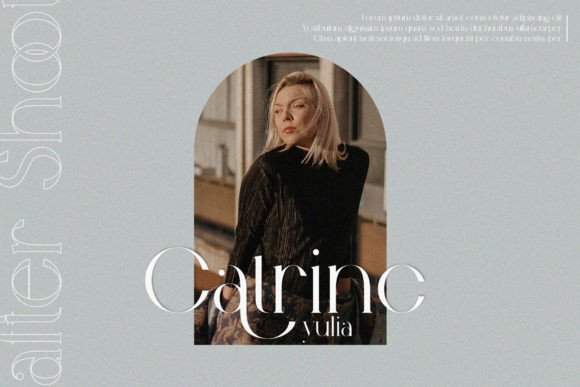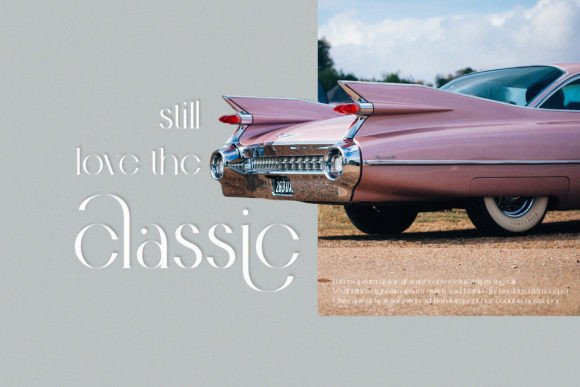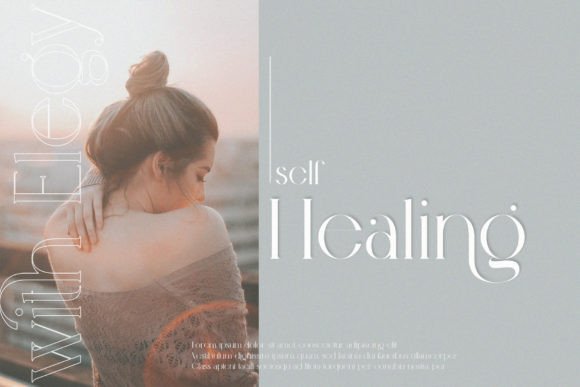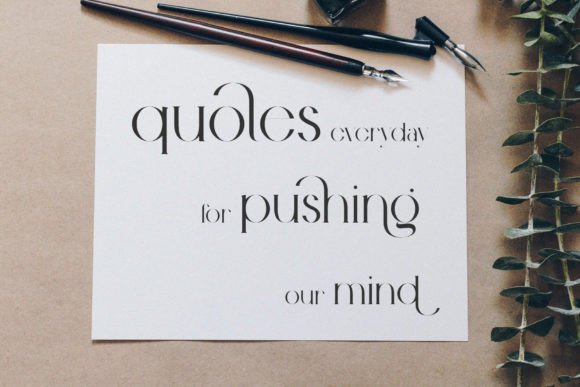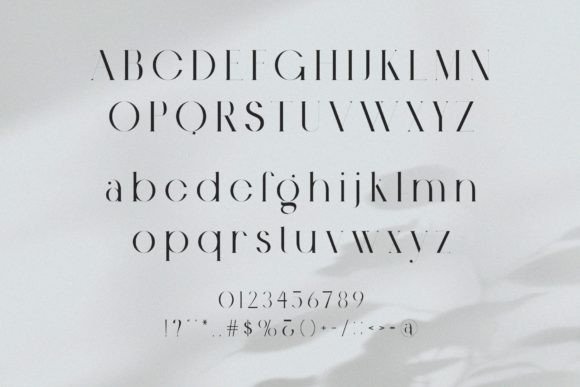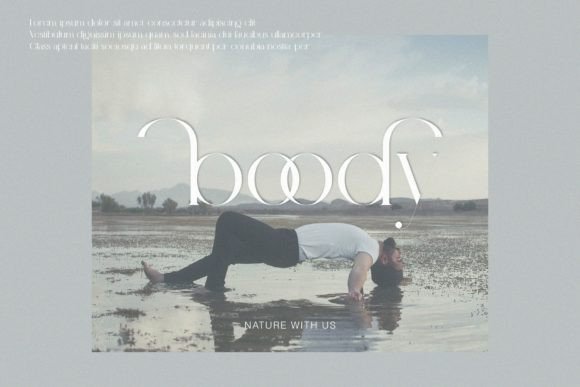
Introduction to Mallnote Font
Remember the thrill of designing a project that finally comes together? The feeling of excitement as you see your ideas transform into a beautiful, cohesive piece of art. For many designers, this moment is the culmination of countless hours spent brainstorming, experimenting, and refining their vision. And when it comes to elevating your creative project to the next level, the right font can make all the difference. That’s where the elegant and classy Mallnote Font comes in – a game-changing design resource that can add a touch of sophistication and style to your work.
| 👤 Author | Alfinart |
Whether you’re working on a logo, a headline, or a high-quality design that demands attention, the Mallnote Font is an excellent choice. Its strong, confident, and dynamic feel can transport your audience to a bygone era, while its PUA encoding ensures seamless access to all glyphs and ligatures. With the Mallnote Font, you can create designs that stand out from the crowd, even on a transparent background. And the best part? It’s available for free download, making it an invaluable resource for designers of all levels.
- High-quality design resource for creative projects, ideal for digital artwork and graphic design.
- Designed to be highly legible and versatile, suitable for a wide range of creative applications.
- Features a clean and modern aesthetic, making it an excellent choice for contemporary design projects.
Honest Review: Mallnote Font
I recently stumbled upon the Mallnote Font while working on a creative project, and I must say it’s been a game-changer. The font’s unique blend of modern and vintage elements has added a touch of sophistication to my design. Plus, it’s free to download, making it an excellent resource for designers on a budget.
One of the standout features of the Mallnote Font is its versatility. It comes in a range of weights and styles, making it perfect for everything from headings to body text. The high-quality design is evident in every aspect of the font, from its smooth lines to its well-balanced proportions.
- ✨ Unique blend of modern and vintage elements
- ✨ Versatile range of weights and styles
- ✨ High-quality design
- ⚠️ Some users may find the font too ornate or busy
Overall, I’m thoroughly impressed with the Mallnote Font. Its unique design and high-quality construction make it a valuable resource for any designer working on a creative project. I’d definitely recommend it to anyone looking for a stylish and versatile font.
Mallnote Font is a high-quality design resource perfect for creative projects that require a unique touch. This font is available for free download and can be used in various applications, including graphic design and digital art.
Some tips for getting the most out of Mallnote Font include using it with a transparent background for a more subtle look, and combining it with other high-quality design resources for a unique and professional appearance. Common use cases for Mallnote Font include logos, business cards, and social media graphics.